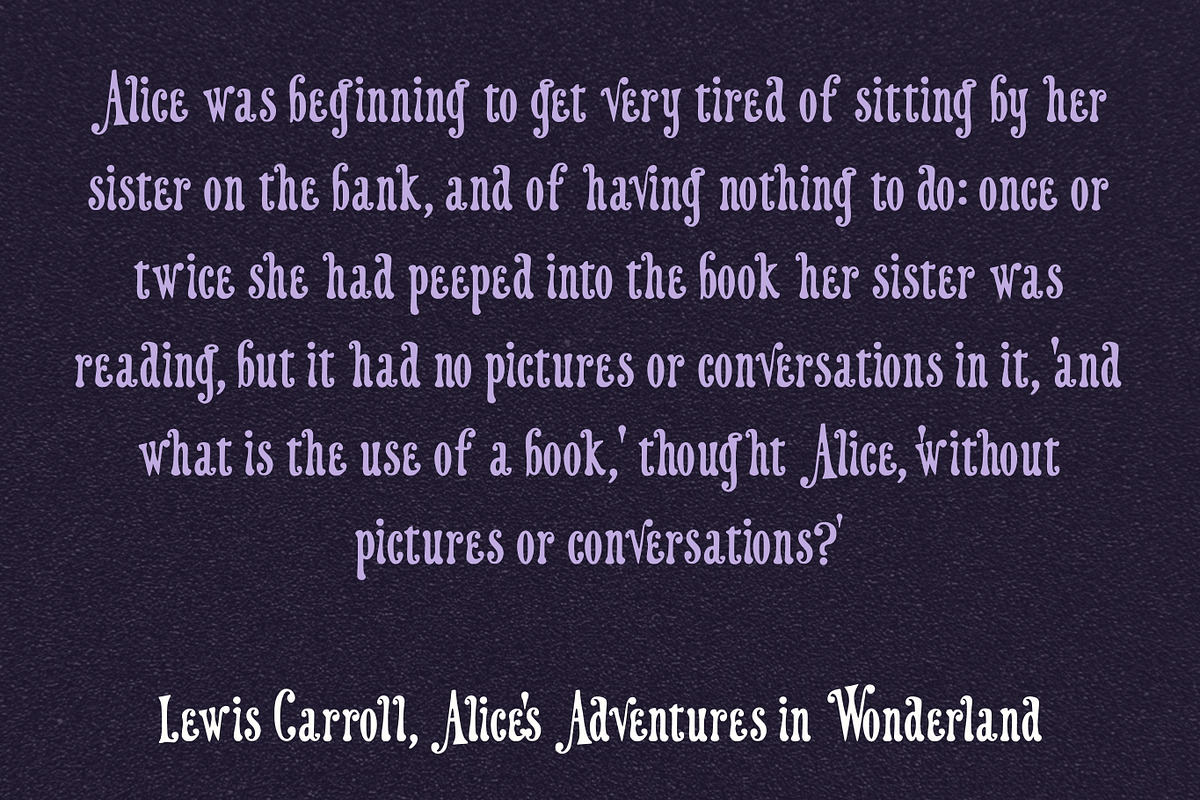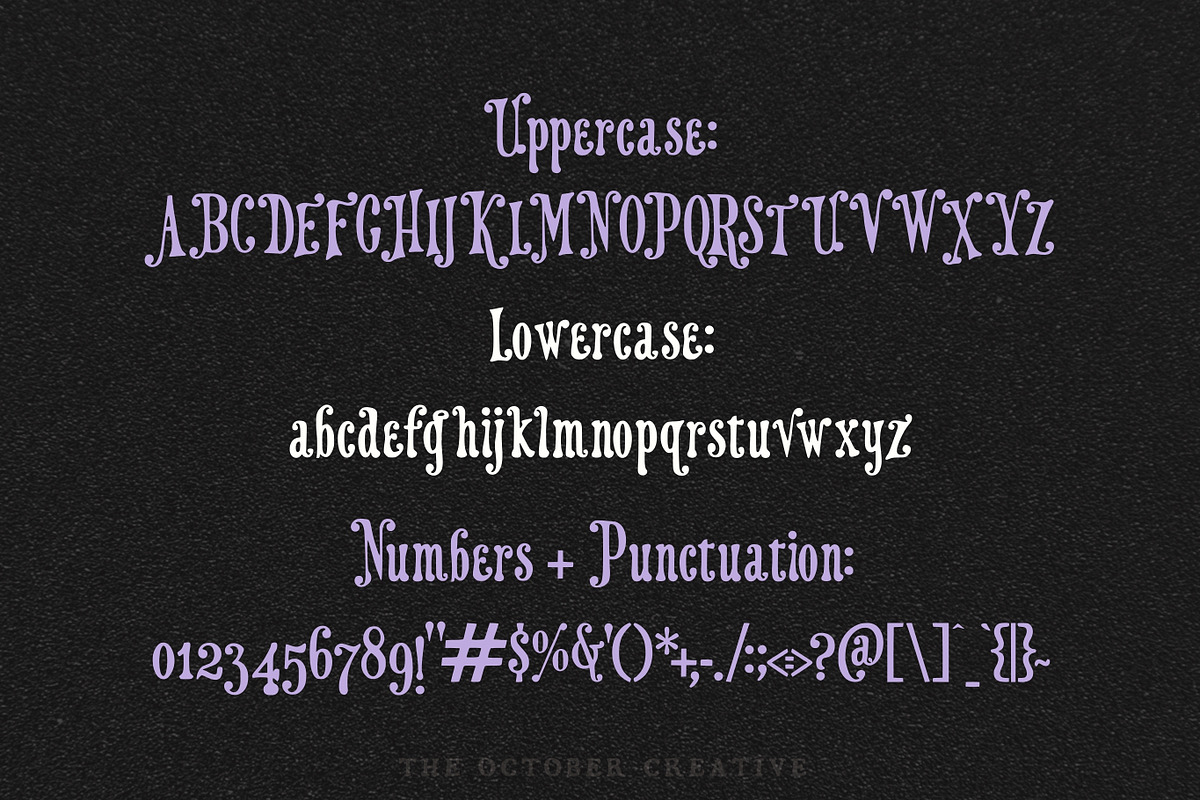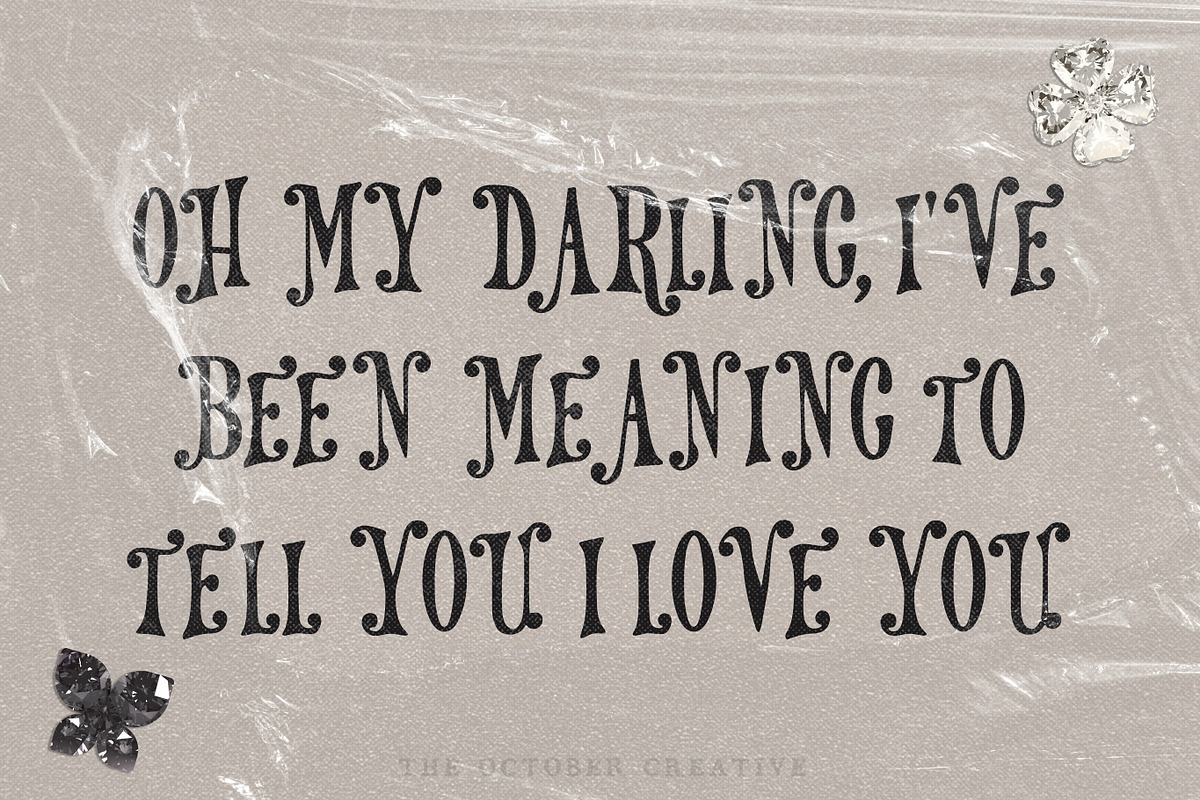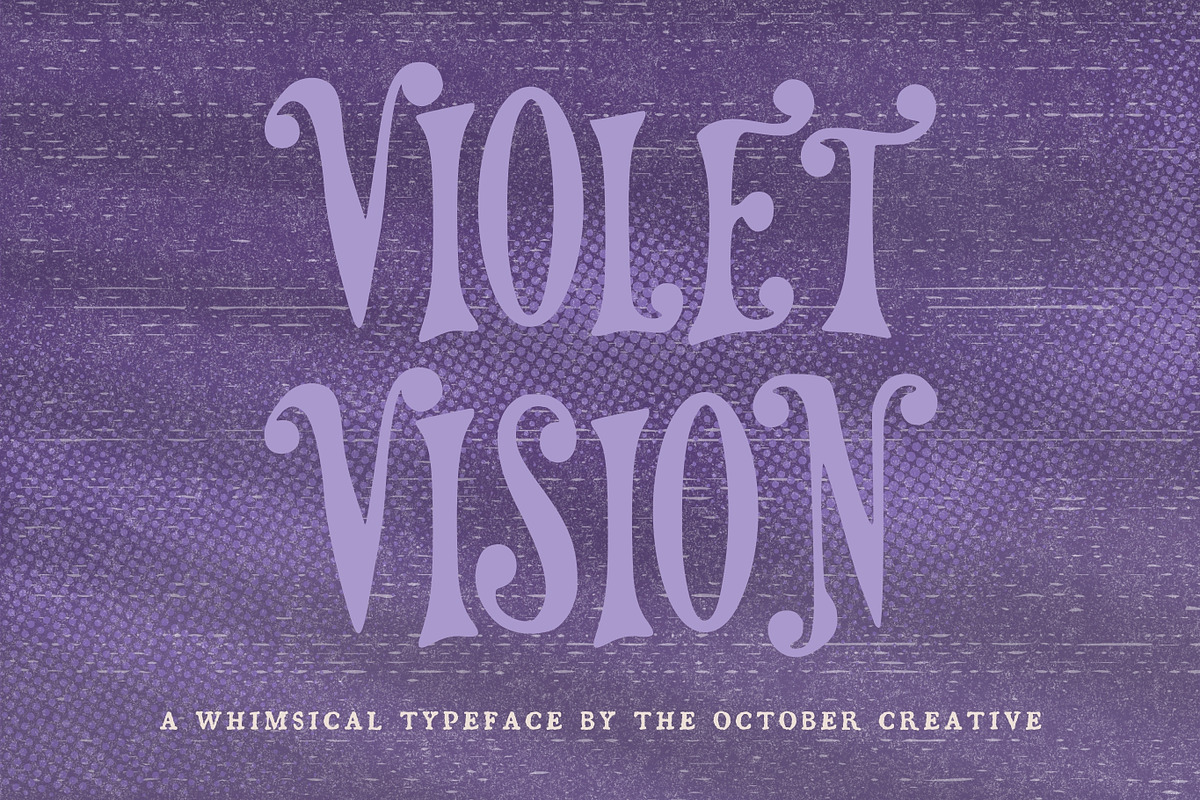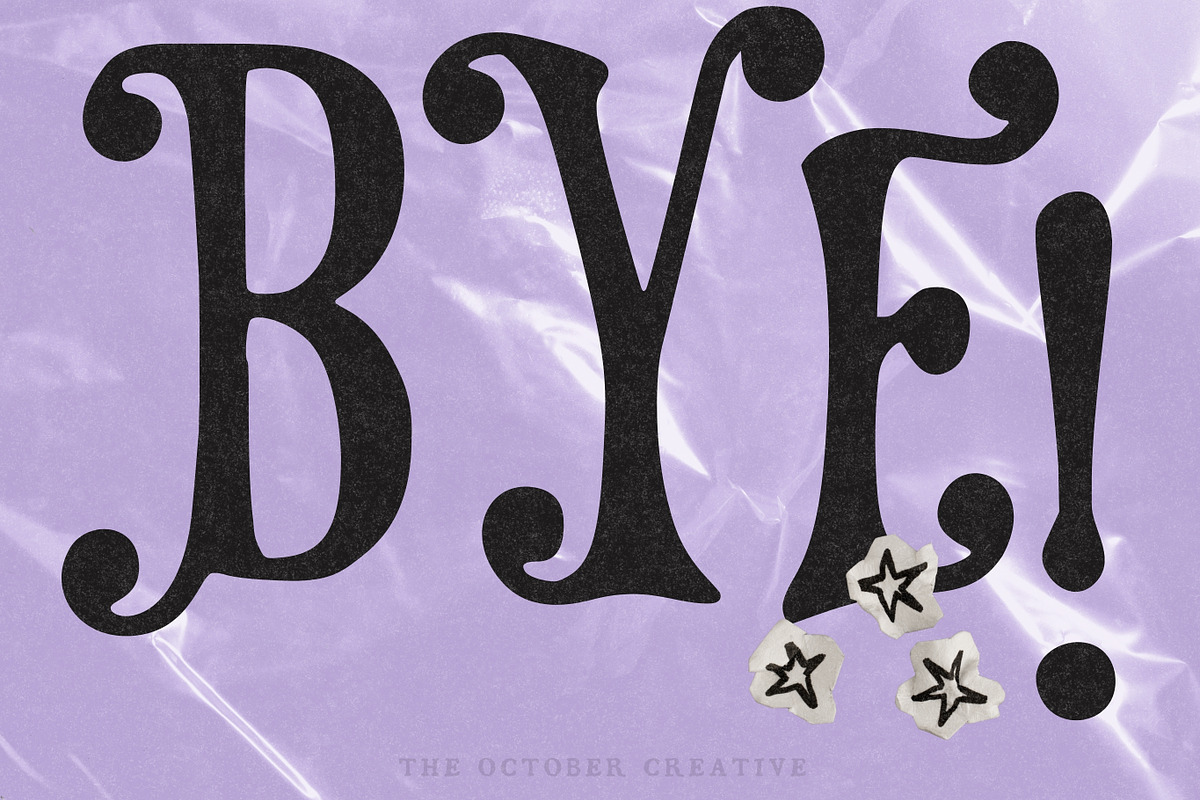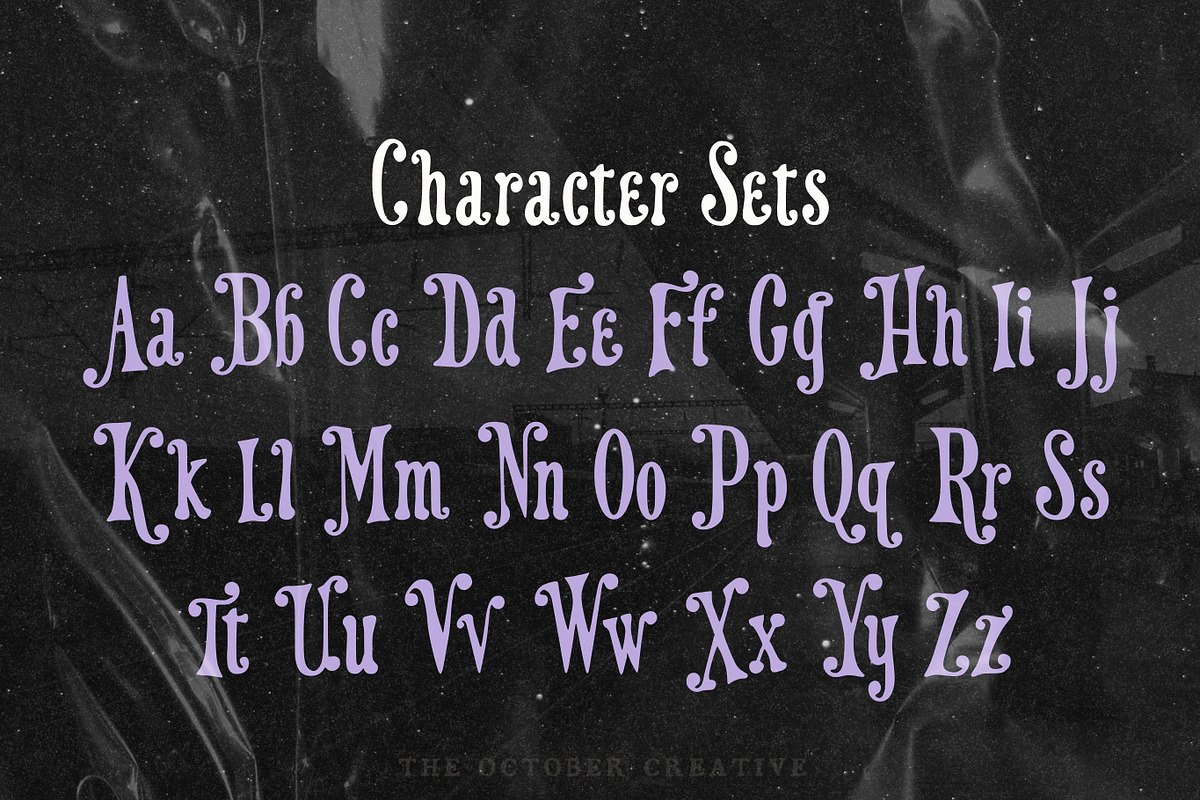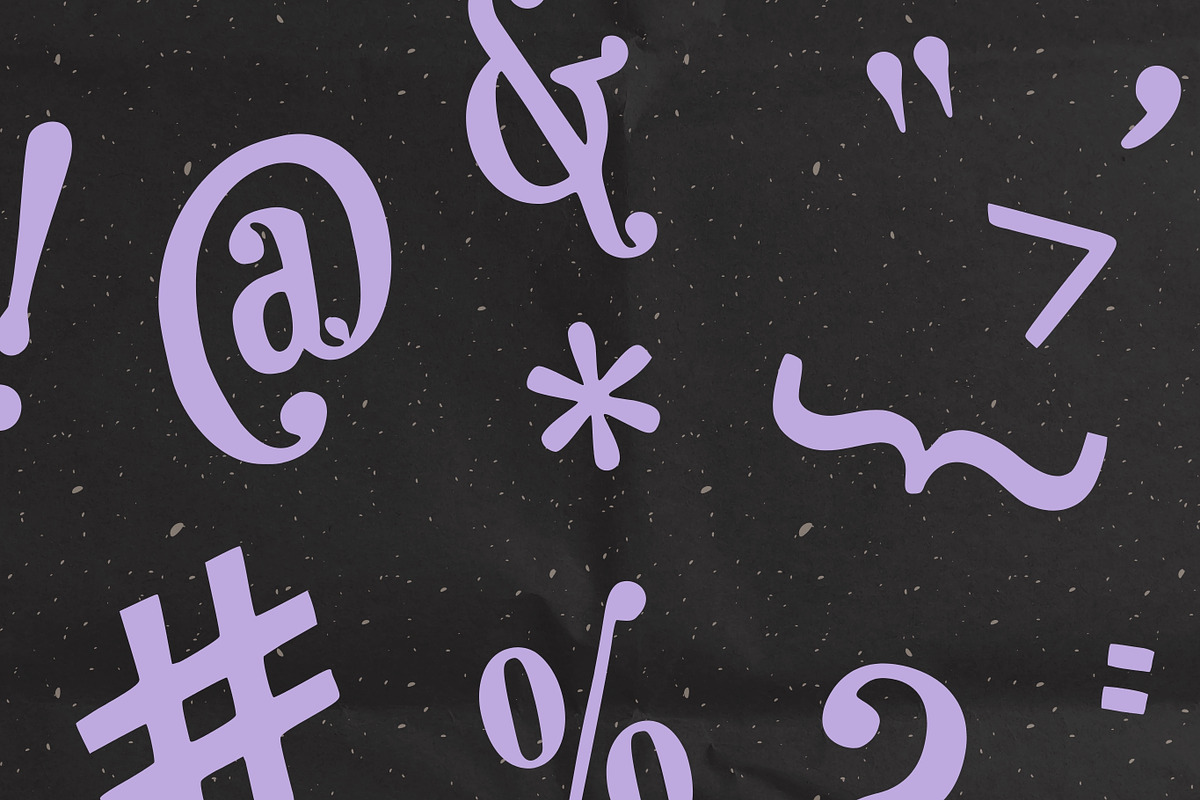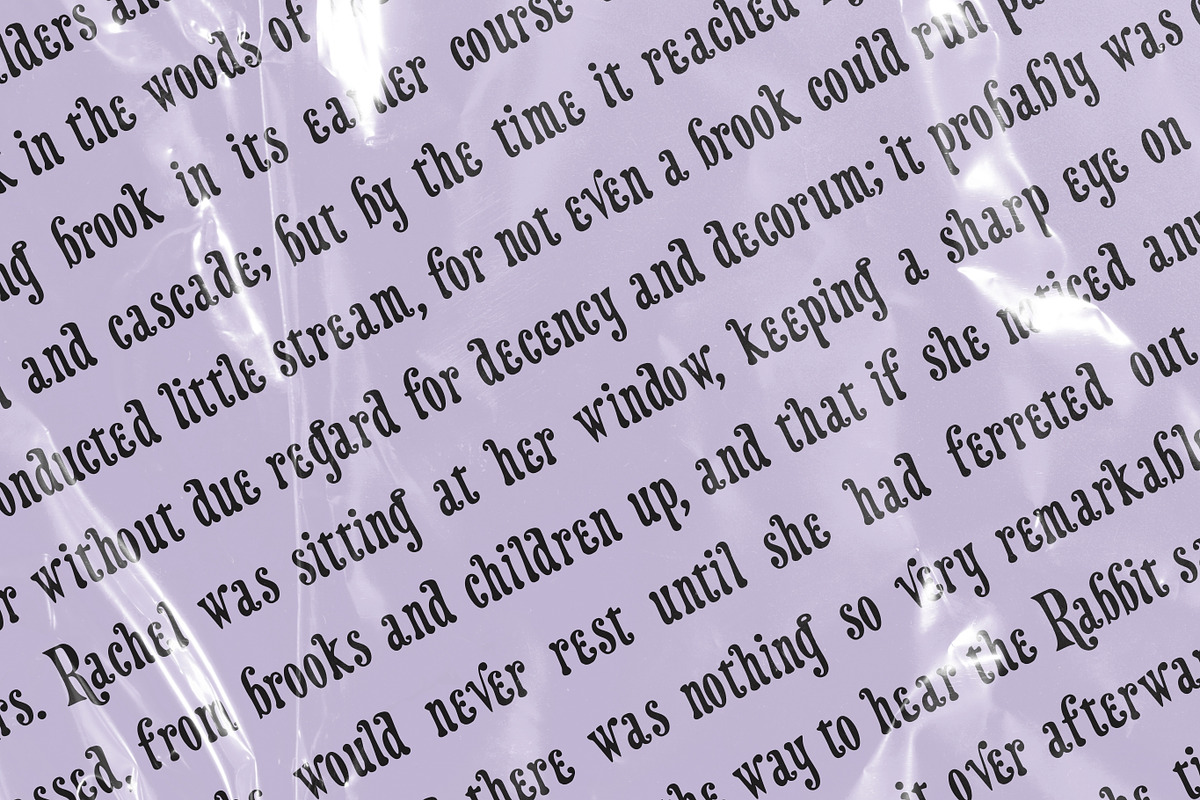
Violet Vision Victorian Circus Font
Violet Vision is a bold Victorian display font with flared serifs, ball terminals, and curled swashes. It has a vintage circus poster look, so use it for carnival and theater posters, apothecary labels, and book covers.
CHARACTER SET
Uppercase A to Z, lowercase a to z, numerals 0 to 9, and every standard keyboard punctuation mark and symbol: ! " # $ % & ' ( ) * + , - . / : ; < = > ? @ [ \ ] ^ _ ` { | } \~
Curly quotes and apostrophes (‘ ’ “ ” ‚ „), en and em dashes, an ellipsis, and a bullet.
Accented letters: À Á Â Ã Ä Å Ç È É Ê Ë Ì Í Î Ï Ñ Ò Ó Ô Õ Ö Ù Ú Û Ü and their lowercase forms.
LANGUAGES SUPPORTED
English, plus the accented vowels, Ñ, and Ç used in names and everyday words in Spanish, French, Italian, Portuguese, German, and Dutch. Not included: ß, Æ, Ø, Œ, and the upside-down ¿ and ¡.
SPECIAL CHARACTERS